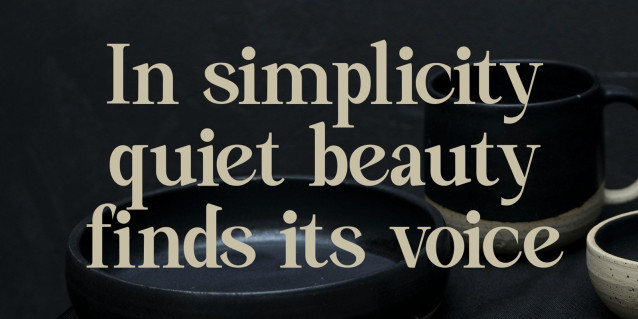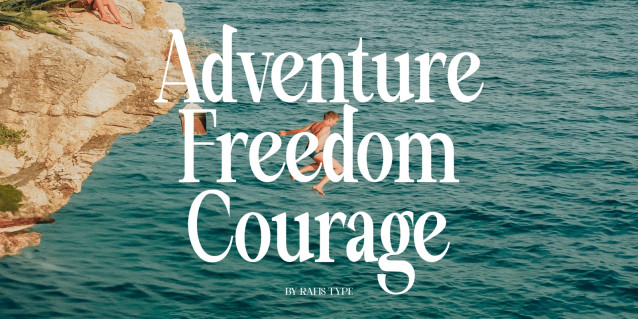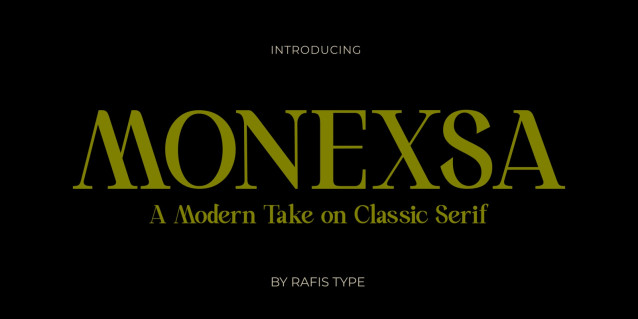
Monexsa Font
Monexsa Font is a modern Serif  font that blends simplicity with a bold touch of elegance. Its clean, well-proportioned characters feature subtle details that create a professional and futuristic impression. Monexsa is perfectly suited for branding, logos, headlines, editorials, posters, and digital designs that require a minimal yet distinctive look. With a balance of strength and sophistication, Monexsa delivers a strong, modern, and memorable visual identity.